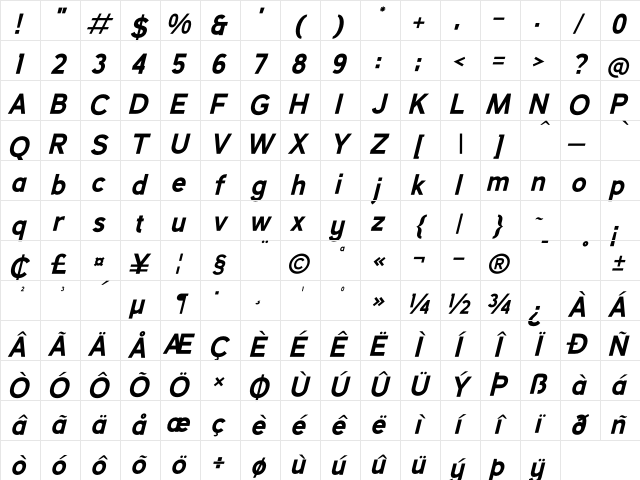
Mashetic Italic Free Font
Mashetic Italic
Design Context for Mashetic
Mashetic is a composed and adaptable typeface that performs quietly and consistently across a wide range of design contexts. The slanted form adds forward momentum and visual energy.
Pro Tip: Use Mashetic for emphasis, pull quotes, and subheadings where its slanted energy can add rhythm to the layout.